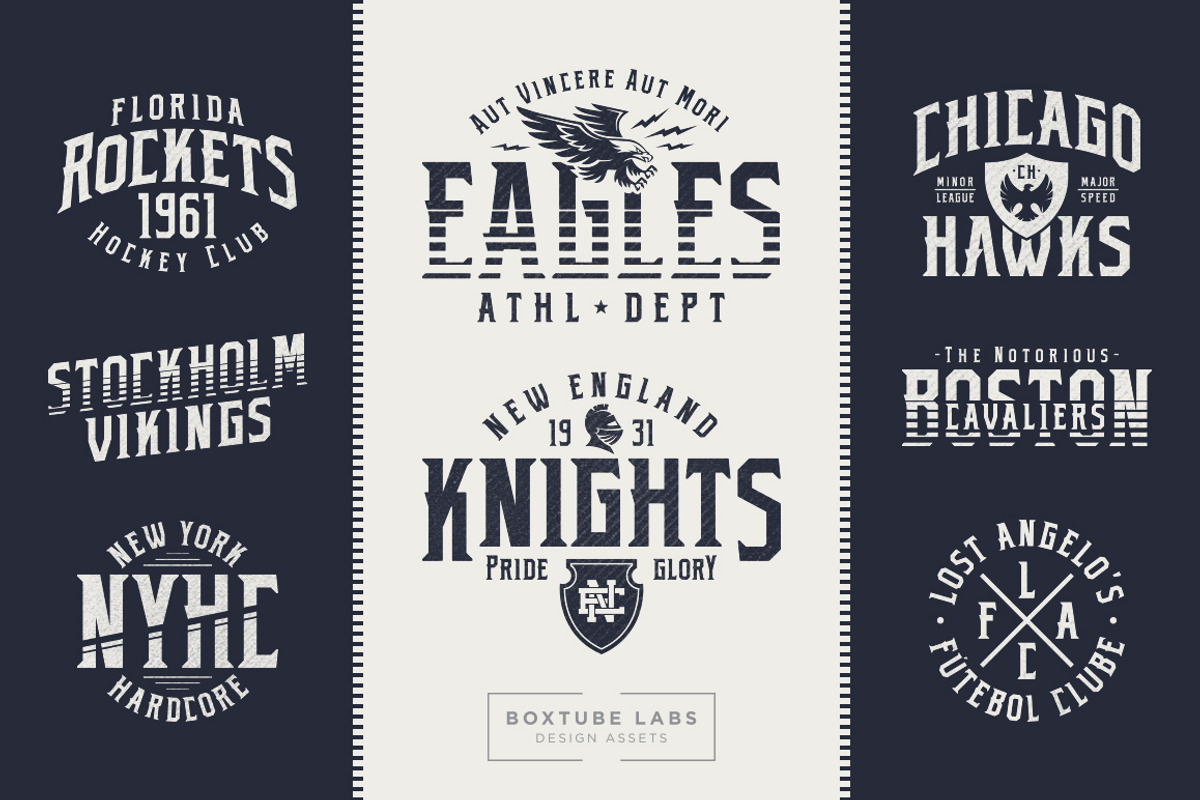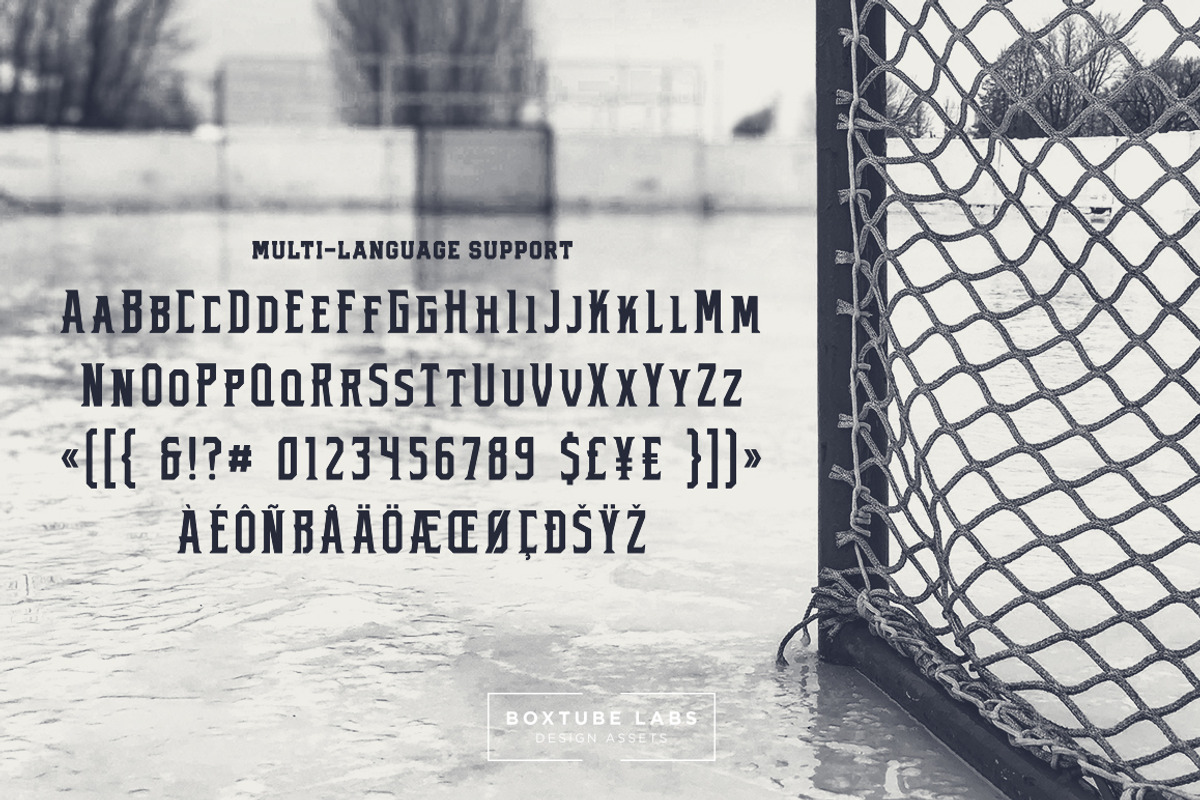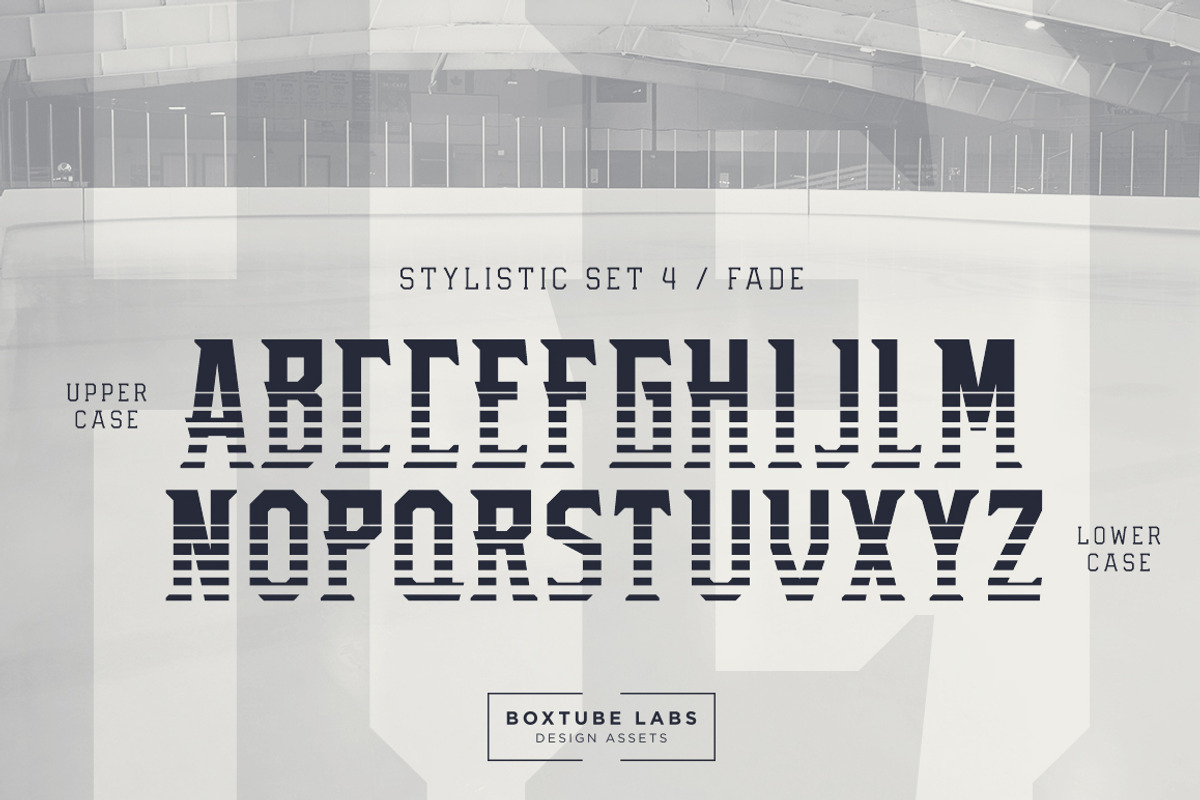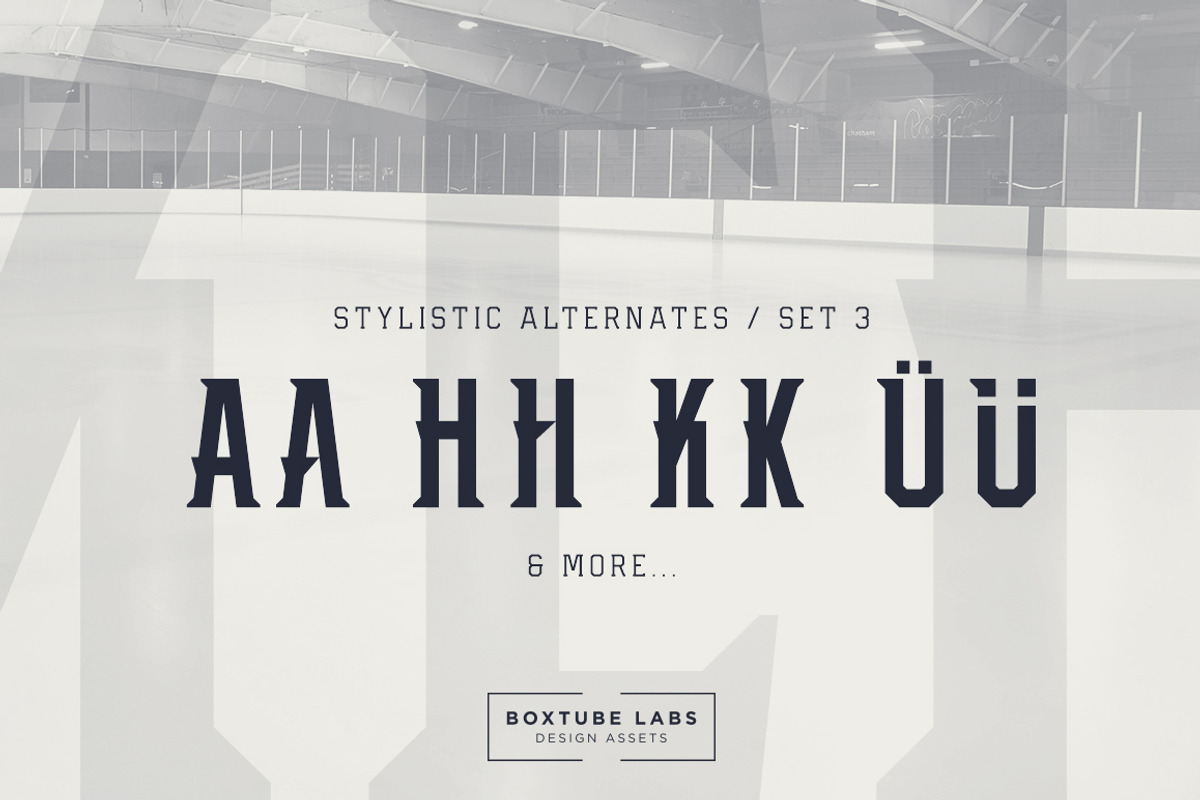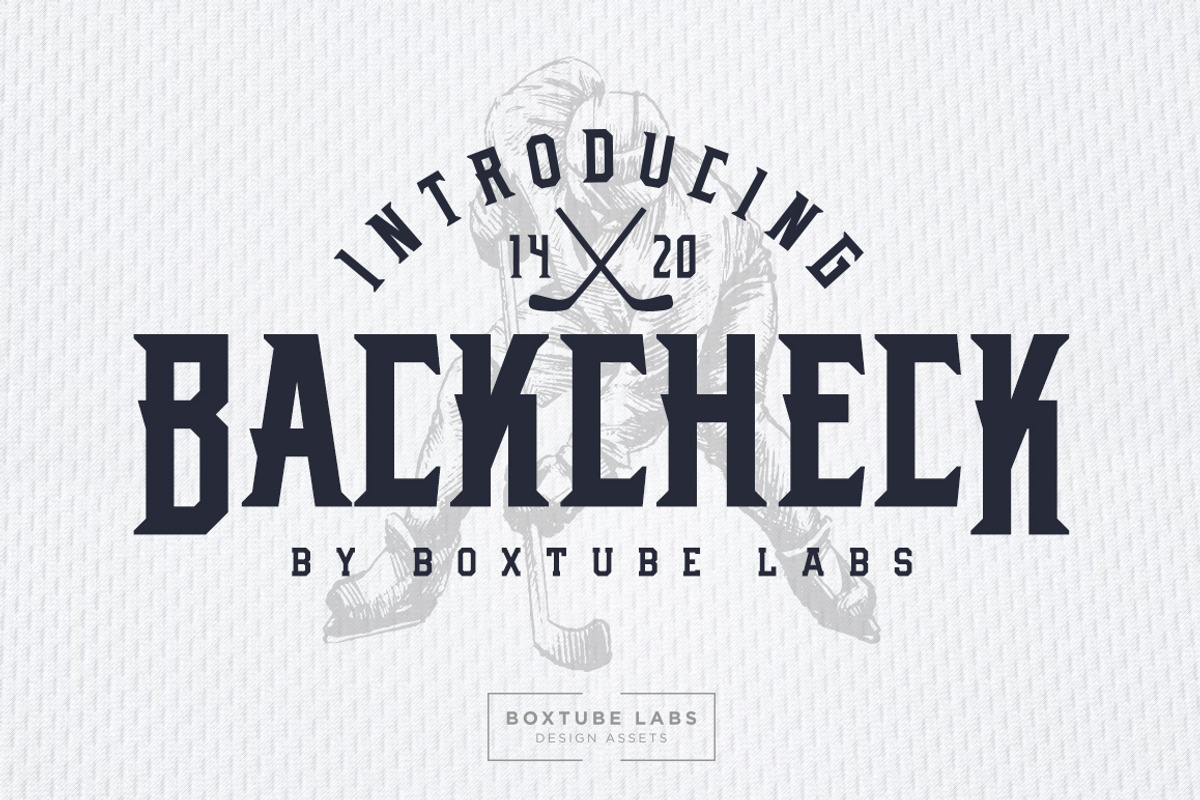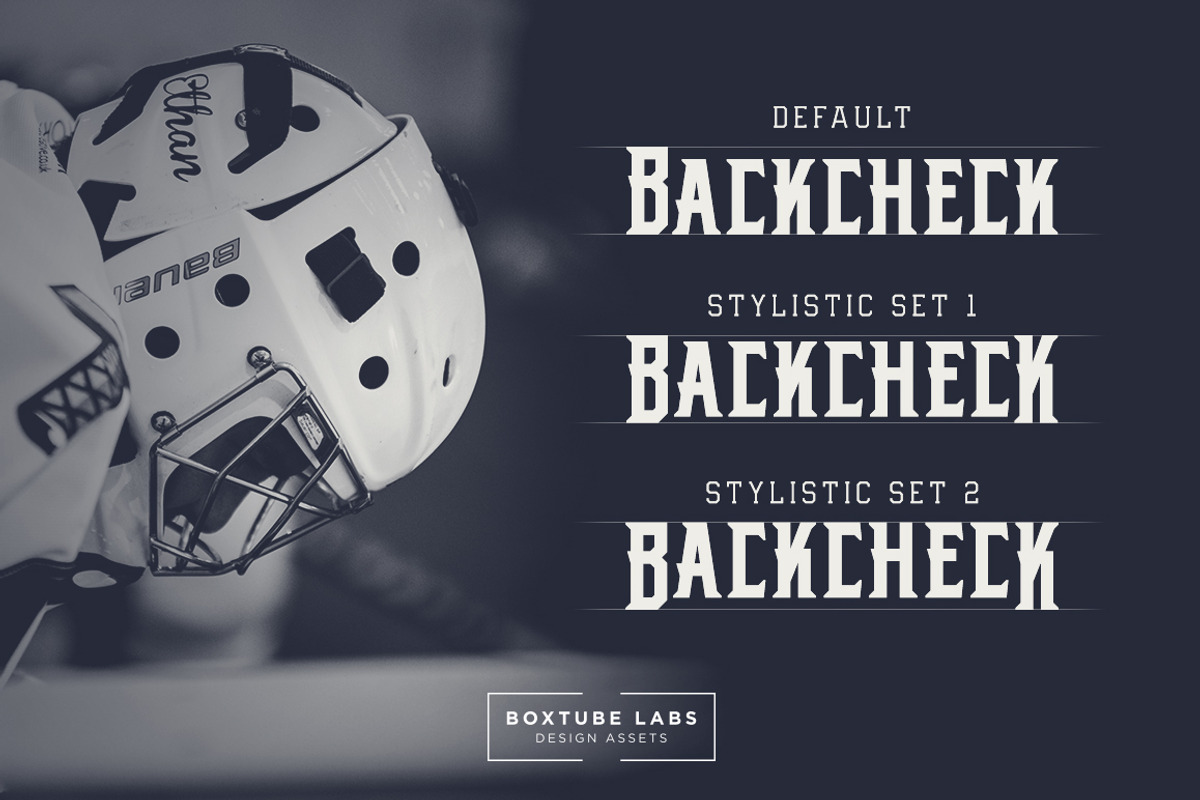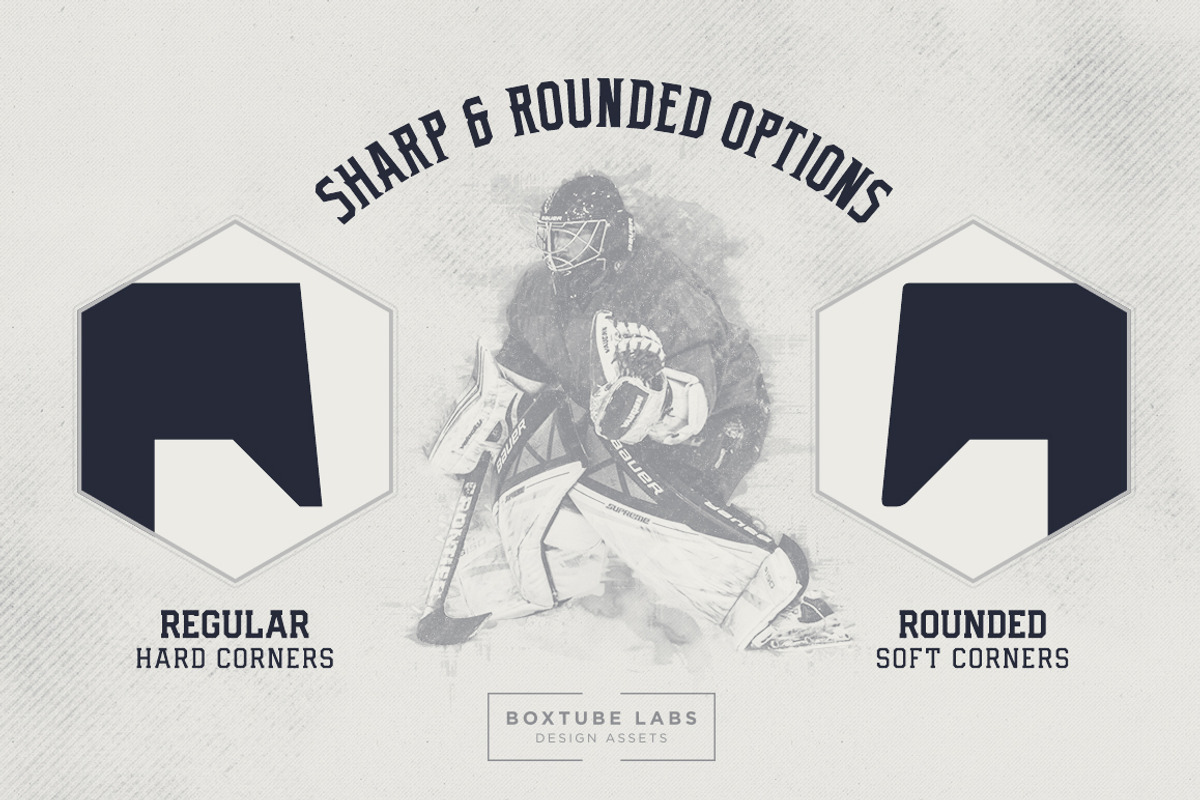
Backcheck - Display Font
Backcheck is a modern sports font with a lot of attitude. It's strong, confident and powerful - perfect for sports logos, branding, posters, apparel design and more. OpenType features include a variety of stylistic sets and alternate characters - 360 glyphs in total.
Backcheck has support for most western languages including: Afrikaants, Basque, Breton, Catalan, Danish, Dutch, English, Finnish, French, Gaelic, German, Icelandic, Indonesian, Irish, Italian, Norwegian, Portuguese, Sami, Spanish, Swahili and Swedish.